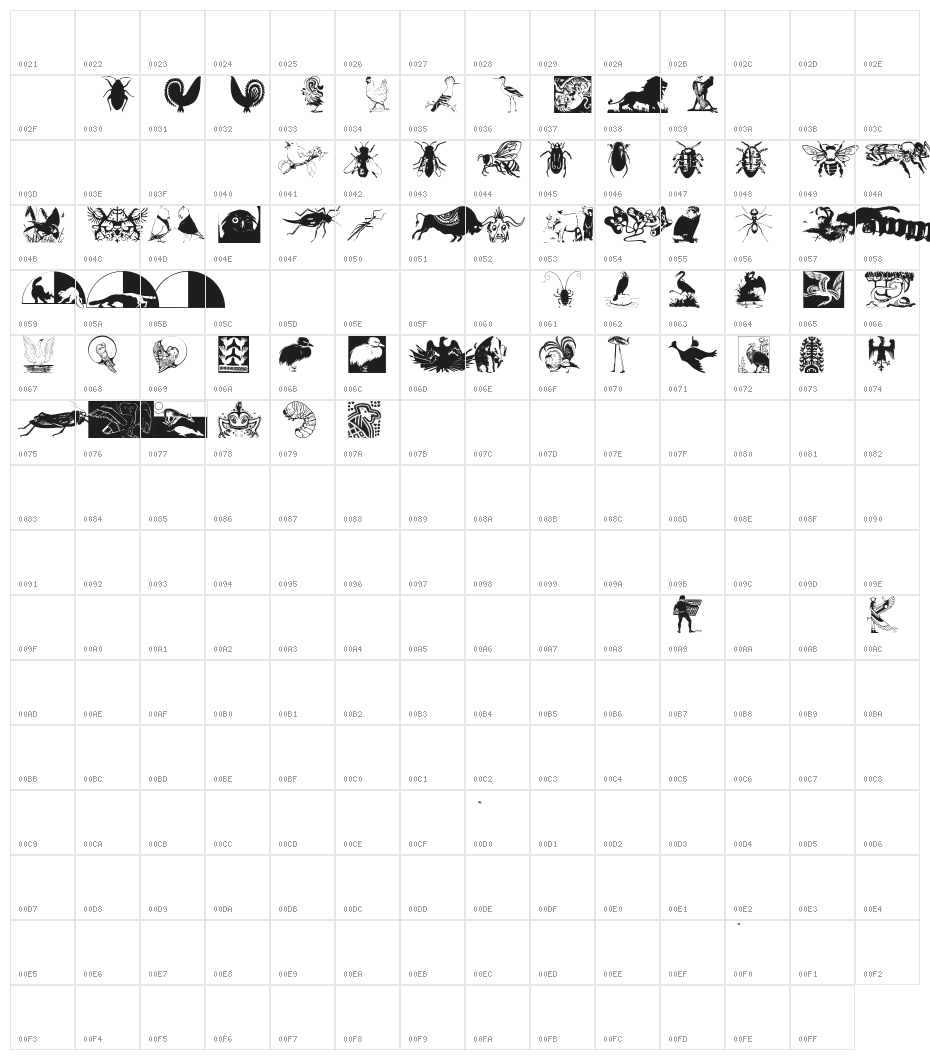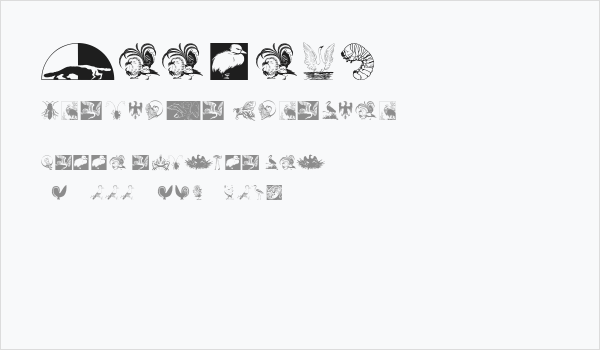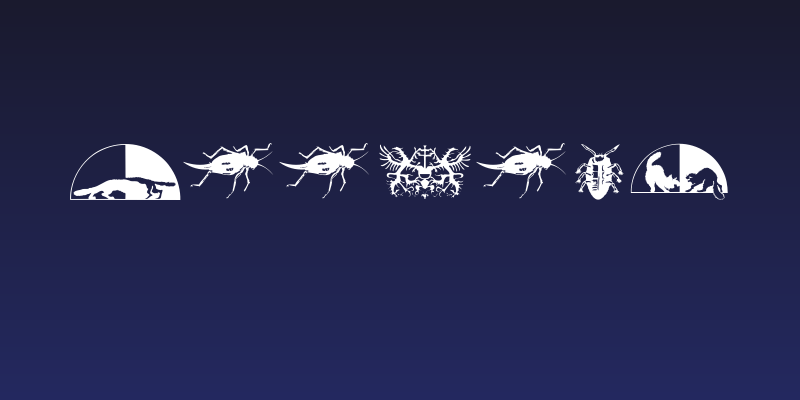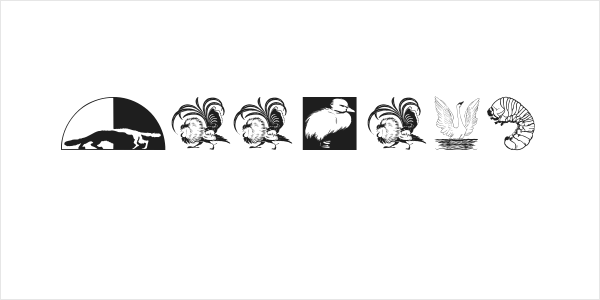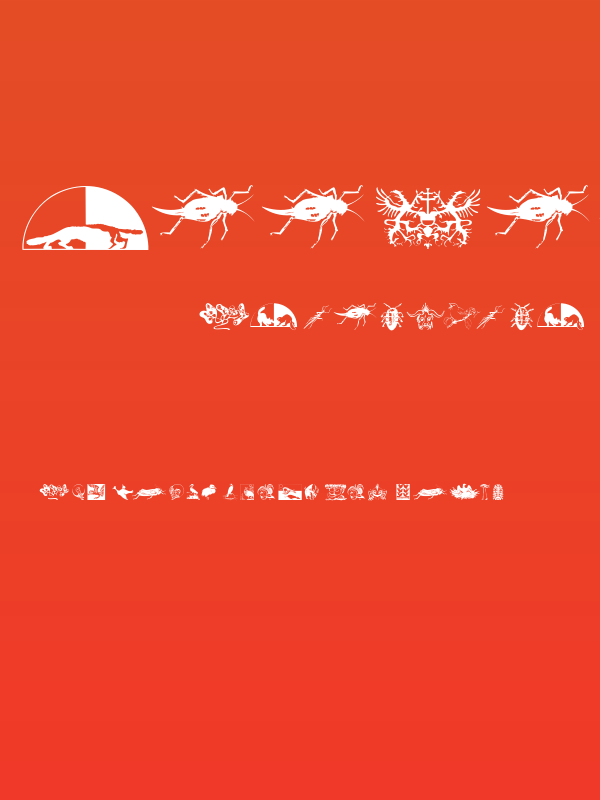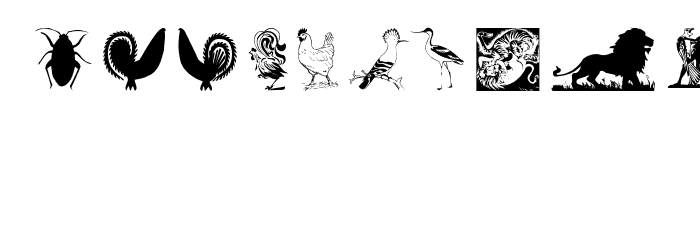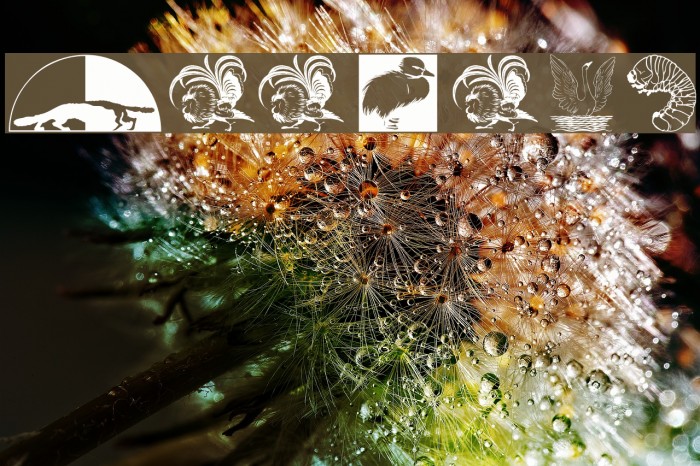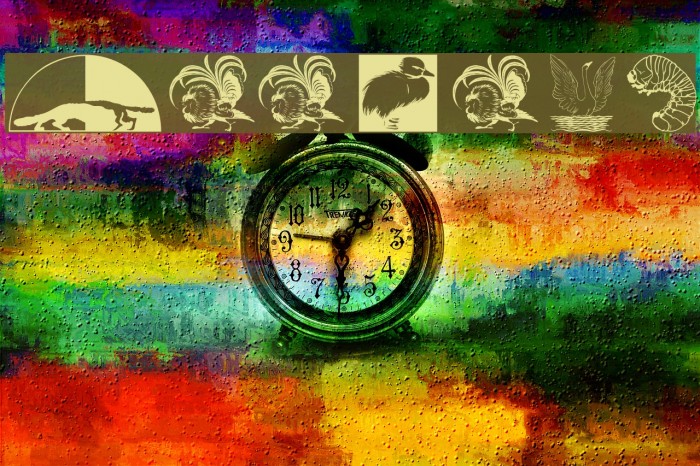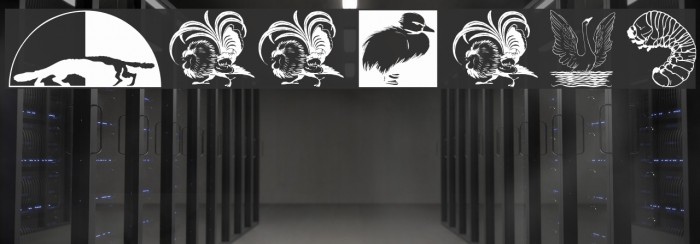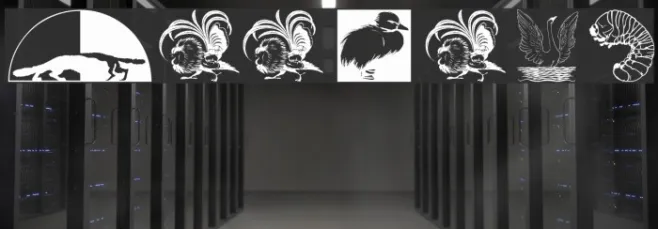
Zoology Font
Zoology Description
A highly decorative and illustrative font composed of detailed black-and-white animal and insect silhouettes, each glyph representing a different creature or zoological theme. The characters are pictorial rather than typographic, making them more suitable for icons or thematic design elements rather than text.
| Overall Style | Decorative, Illustrative, Thematic |
| Use Case | Icons, Logos, Decorative headings, Thematic graphics |
| Proposed Projects | Educational materials, children's books, themed posters, wildlife presentations, nature-related branding, icon sets. |